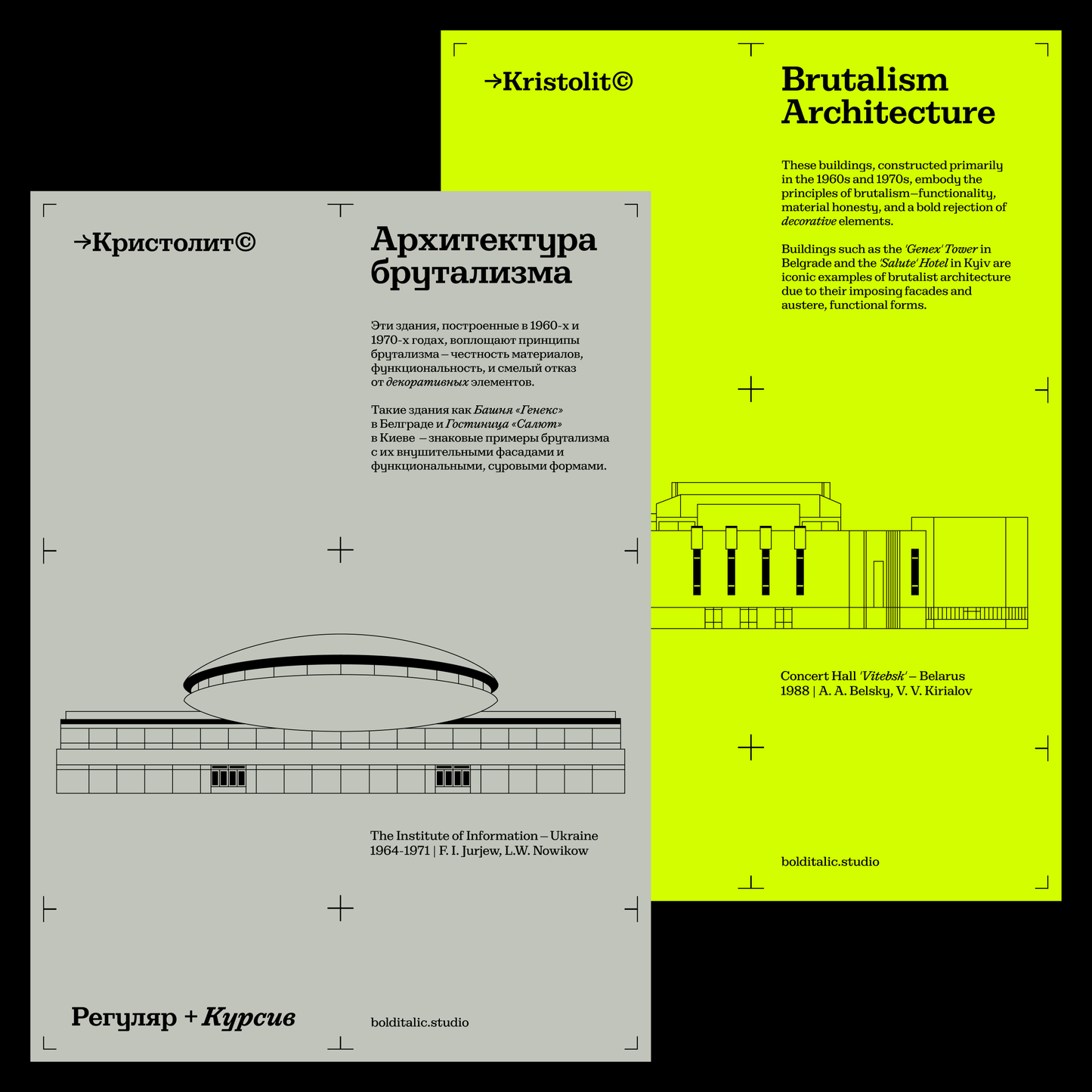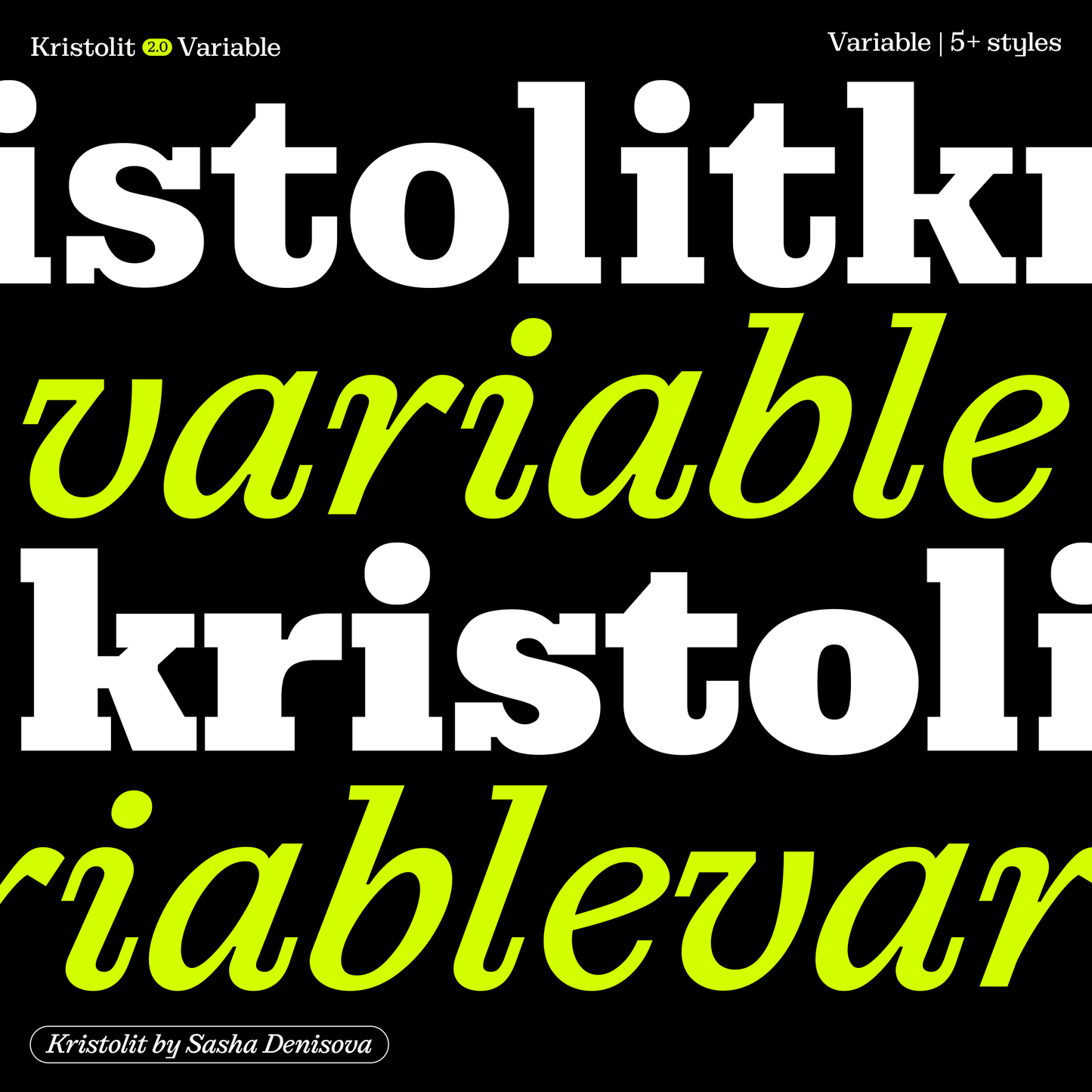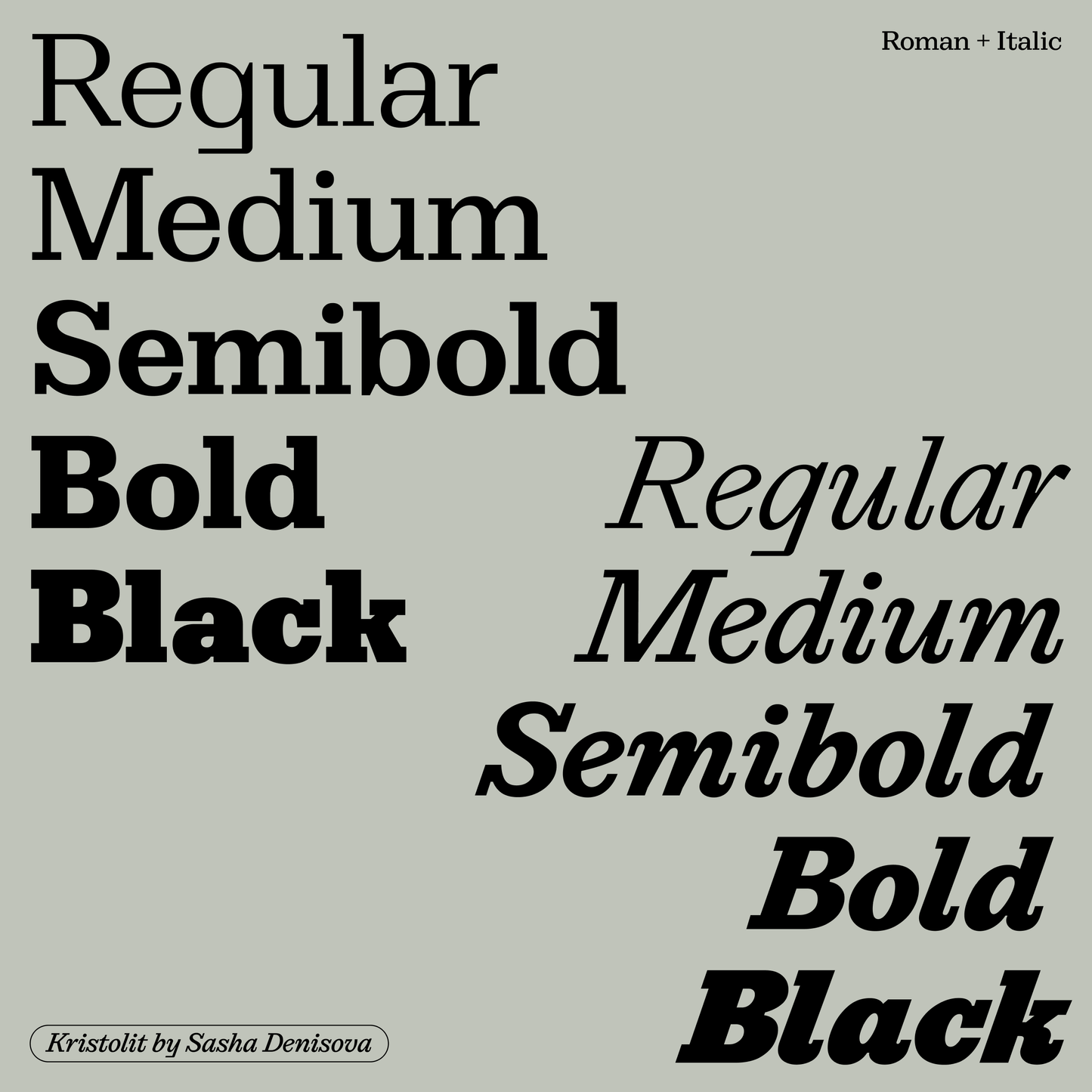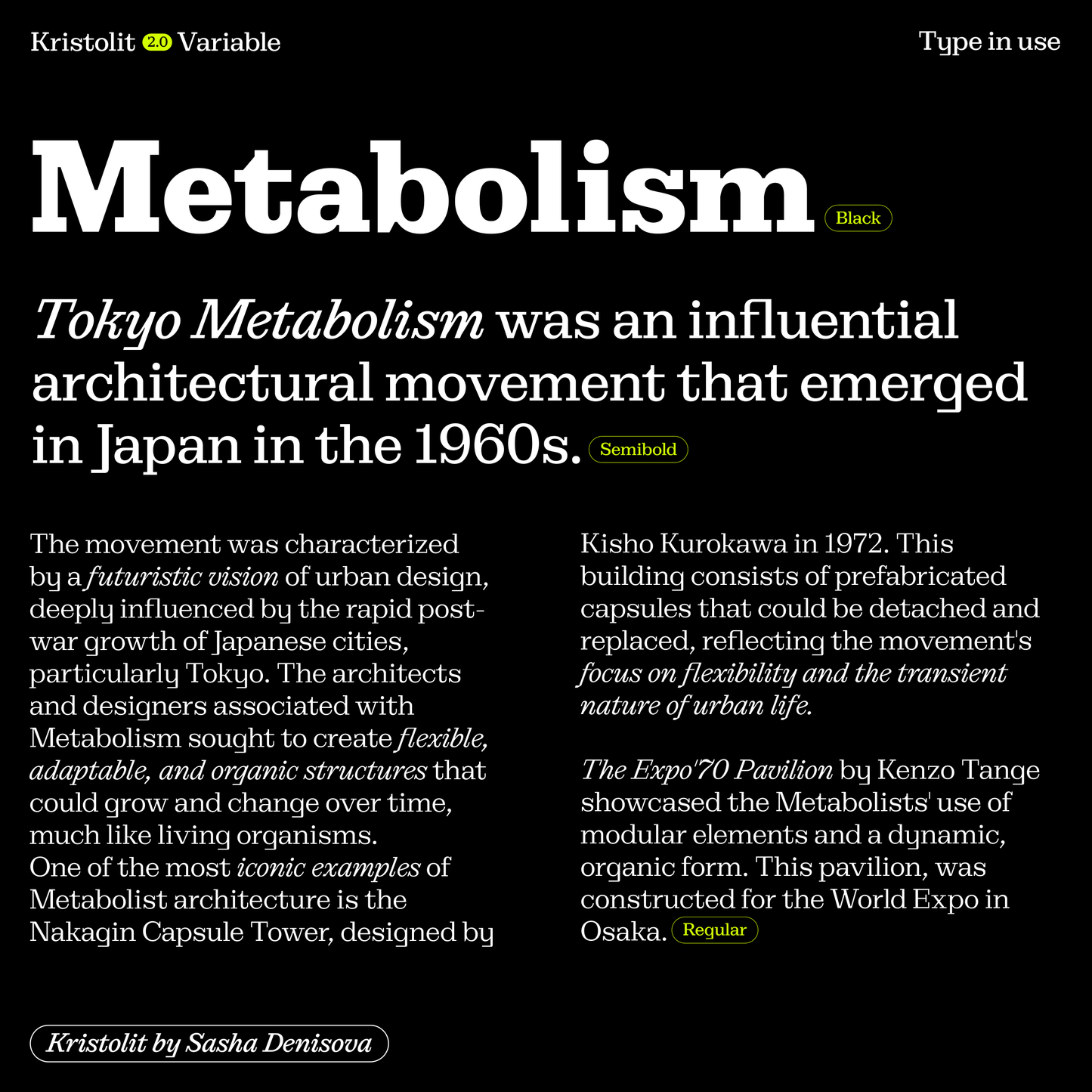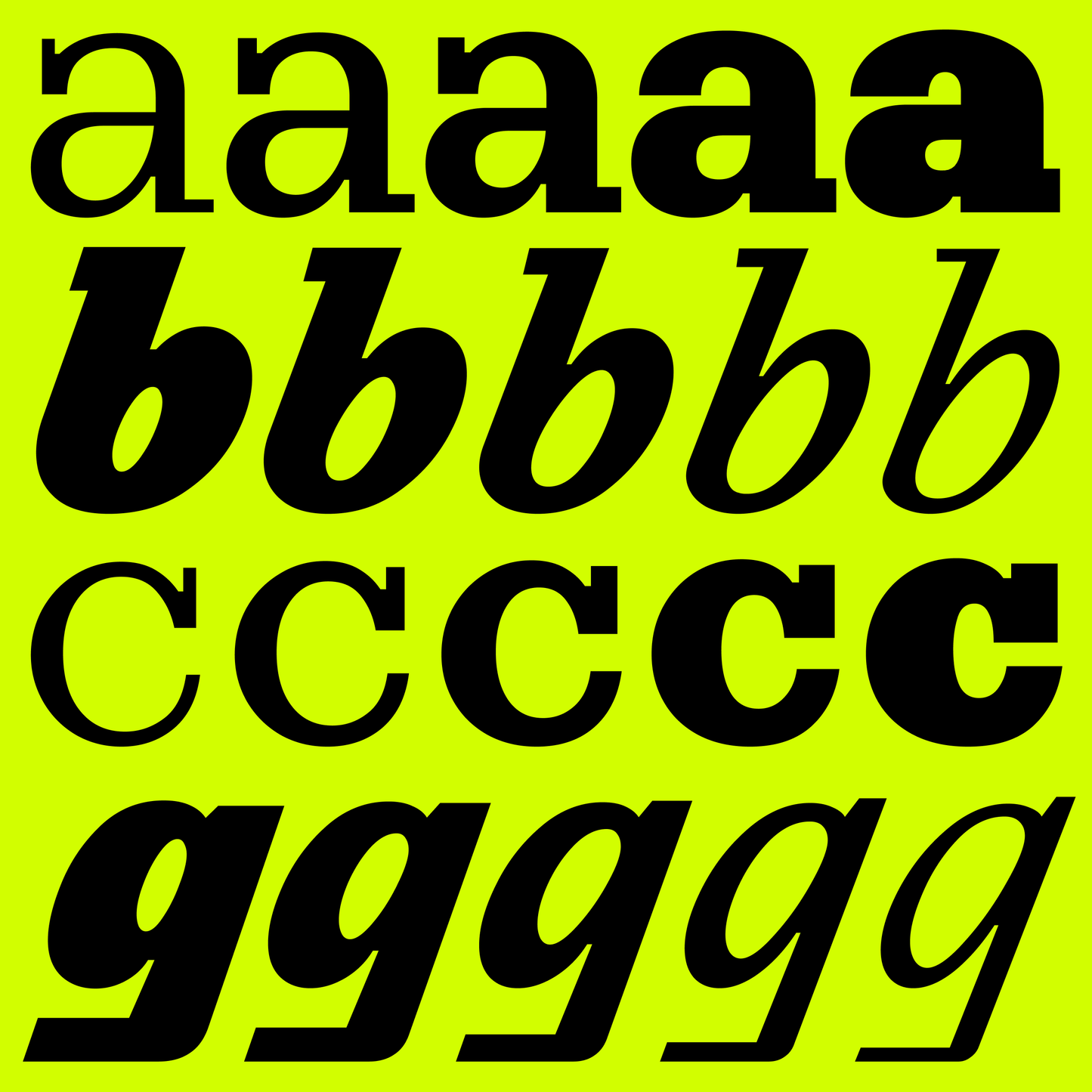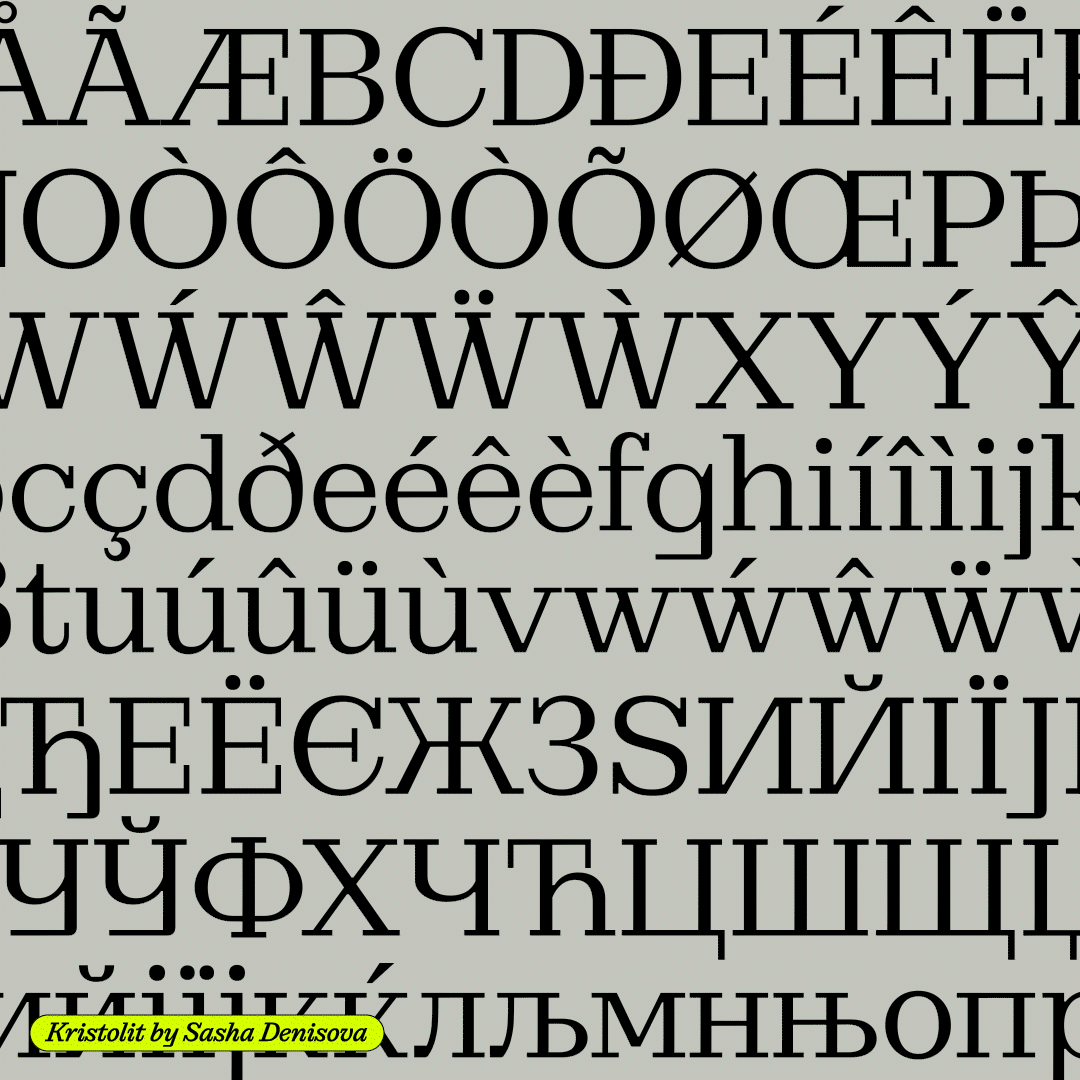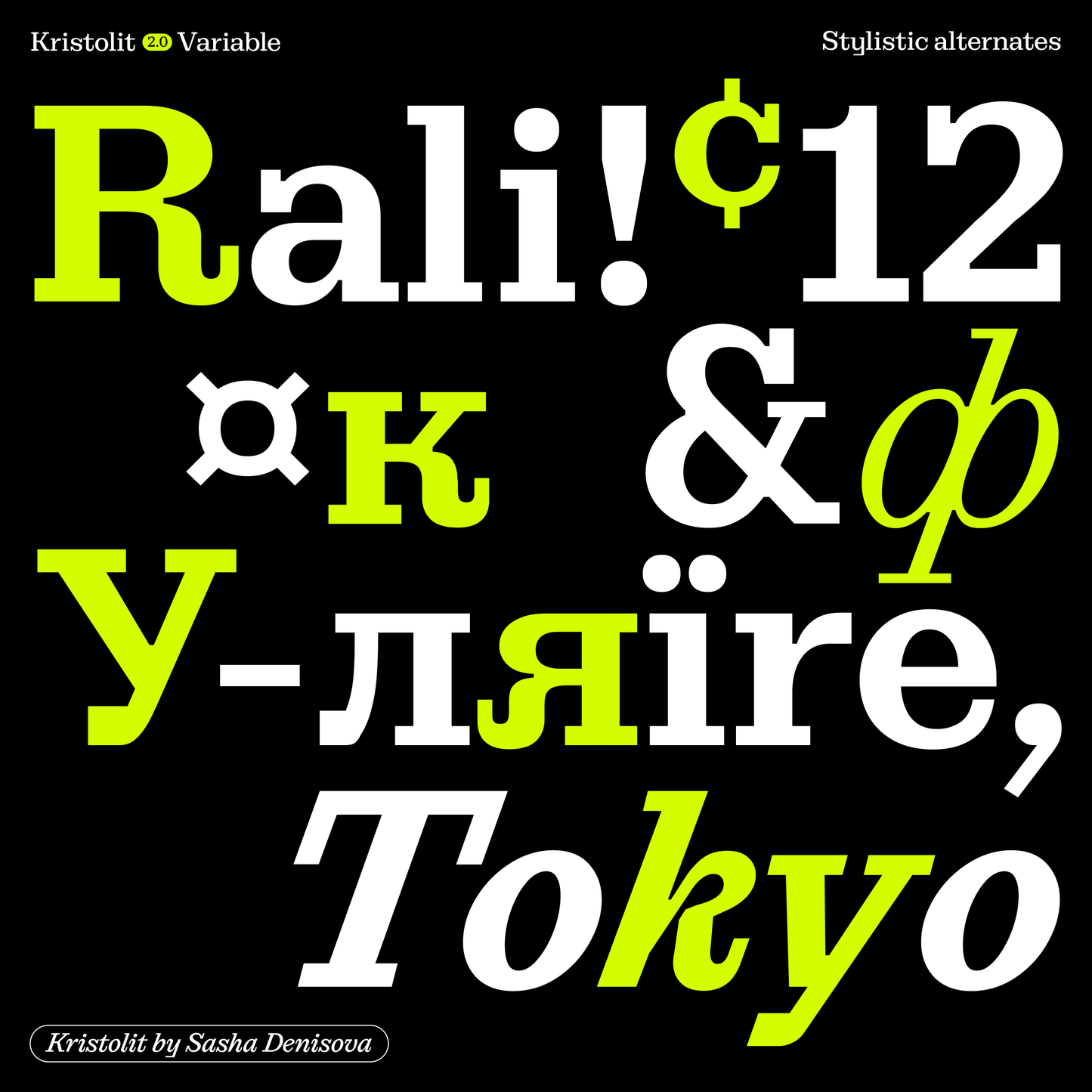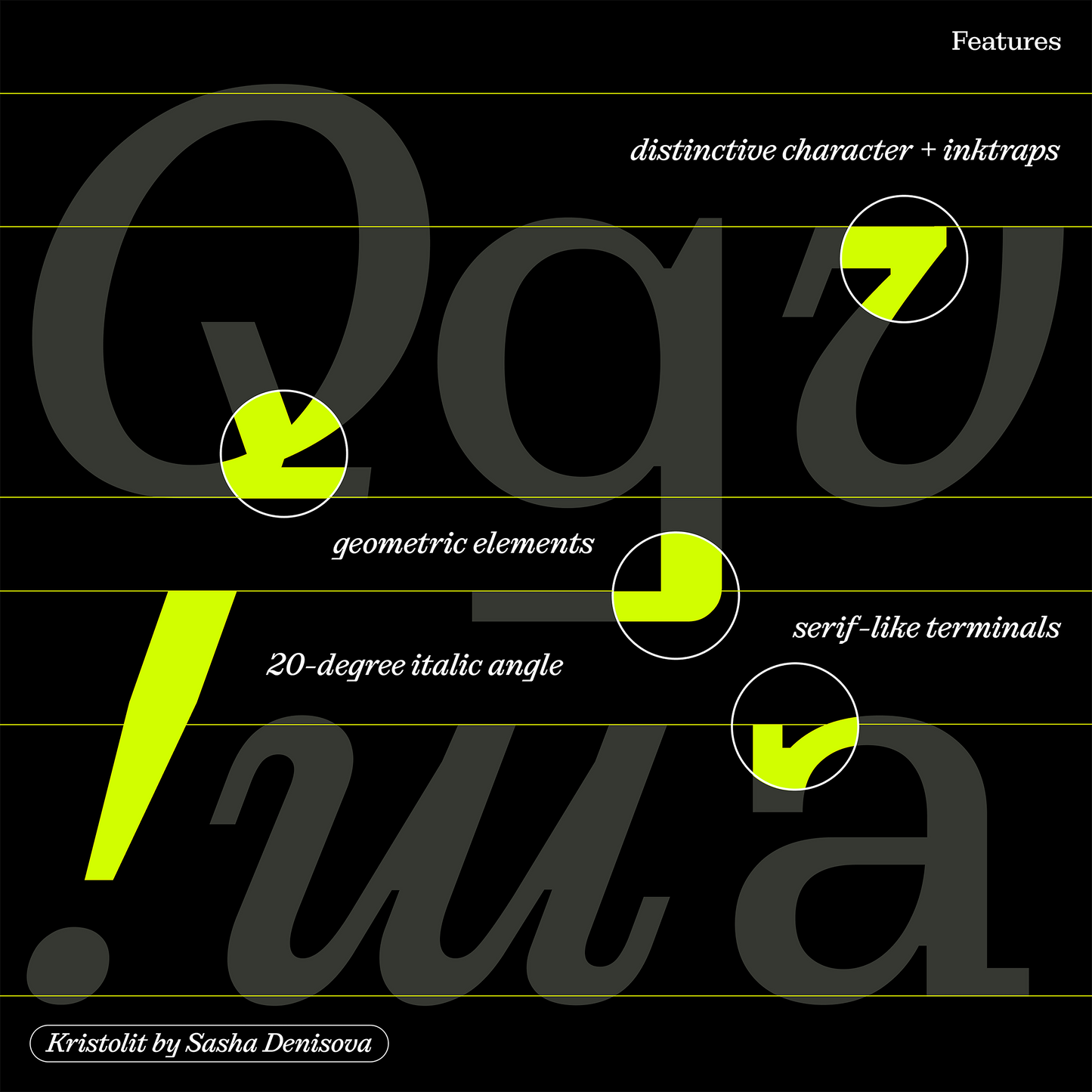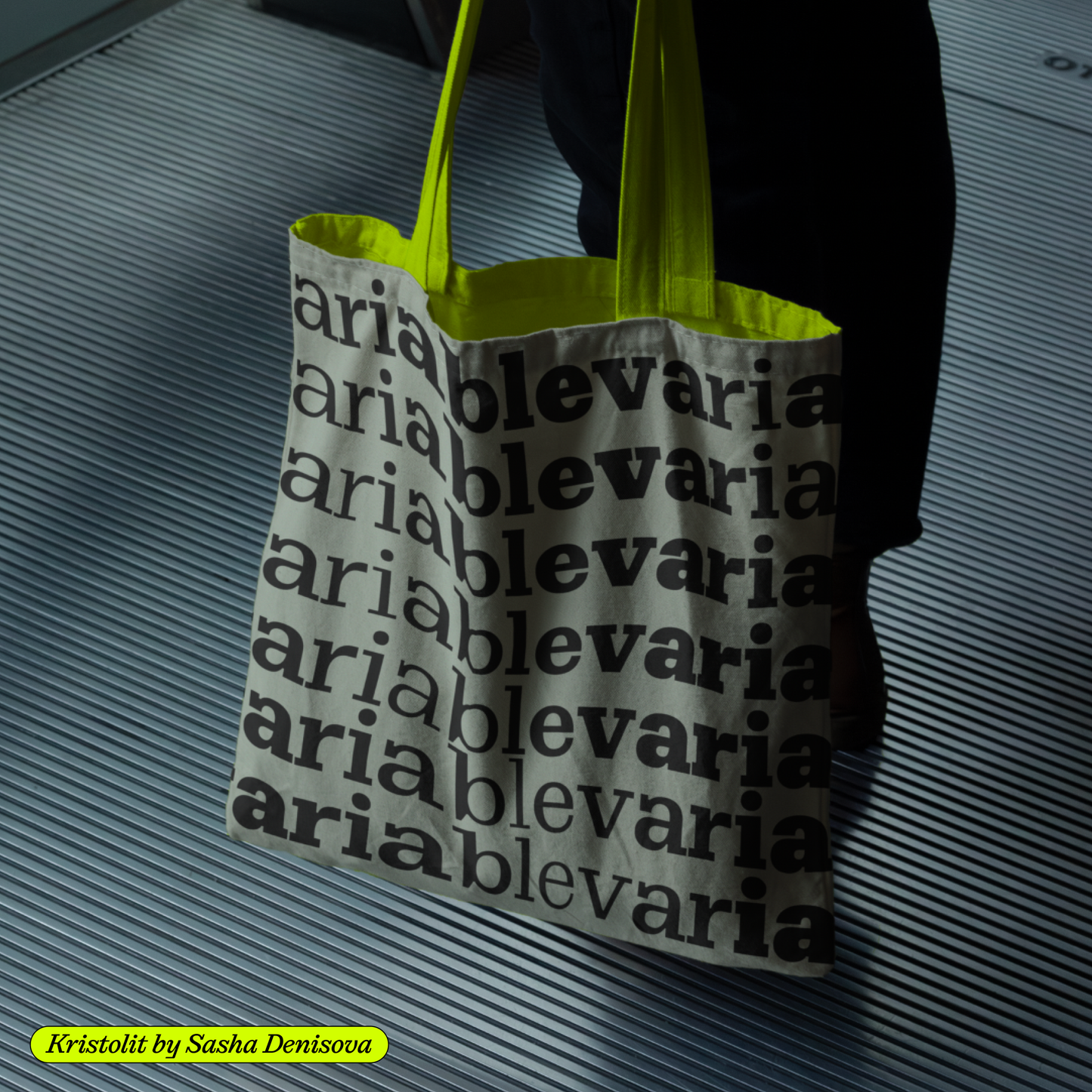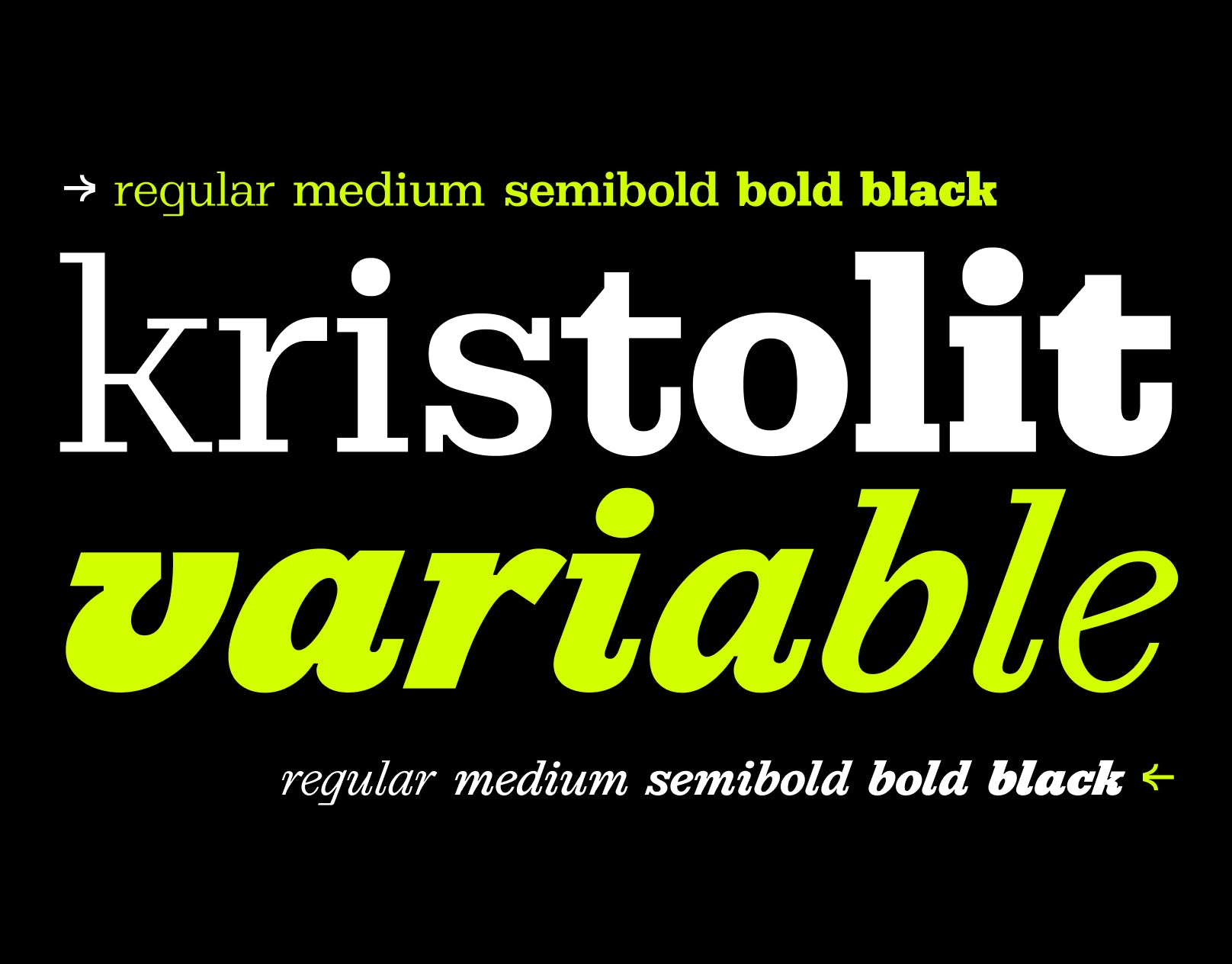
Kristolit
Sasha Denisova
Kristolit is a Scotch Roman-inspired typeface with a technological twist. It is a variable font featuring both regular and italic styles. This typeface offers versatile design options ranging from subtle bookweight to bold black, blending timeless elegance with modern appeal, making it perfect for projects that demand both classic sophistication and technological strength.
Elegant yet robust, Kristolit's ample curves contrast sharply with its bold lines, vertical axis, and strong stroke contrast. This type family is optimised for editorial use, branding projects, and identities, striking a perfect balance between aesthetic experimentation, functionality, and legibility. The italic version adds a calligraphic touch while retaining its modern, tech-savvy character. Kristolit features stylistic alternates that can shift the tone to a more traditional or concise appearance.
Kristolit supports all major Latin-based languages and also includes Cyrillic support for Serbian, Russian, Ukrainian, and Belarusian.
Kristolit was designed by Belgrade-based art director Sasha Denisova.